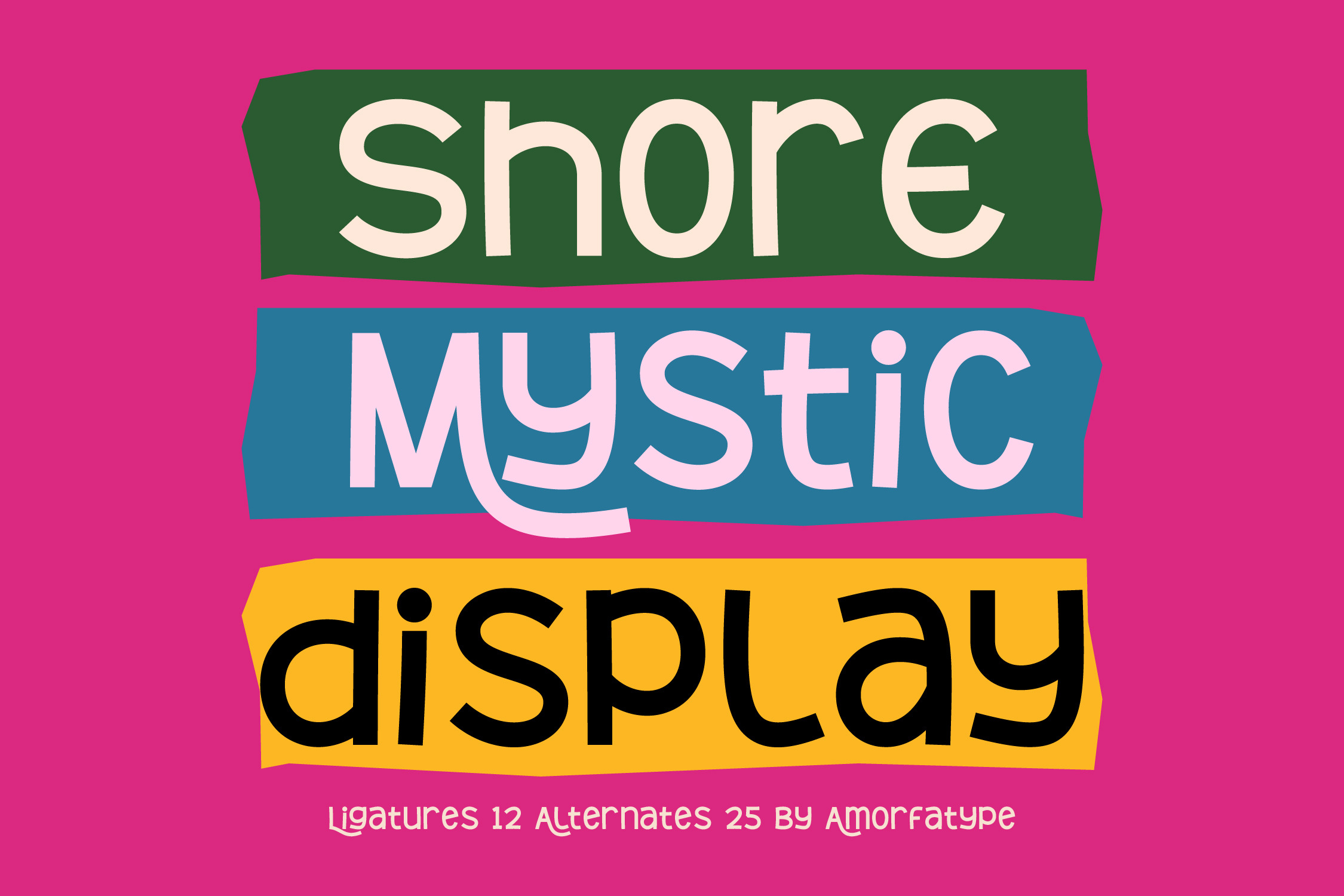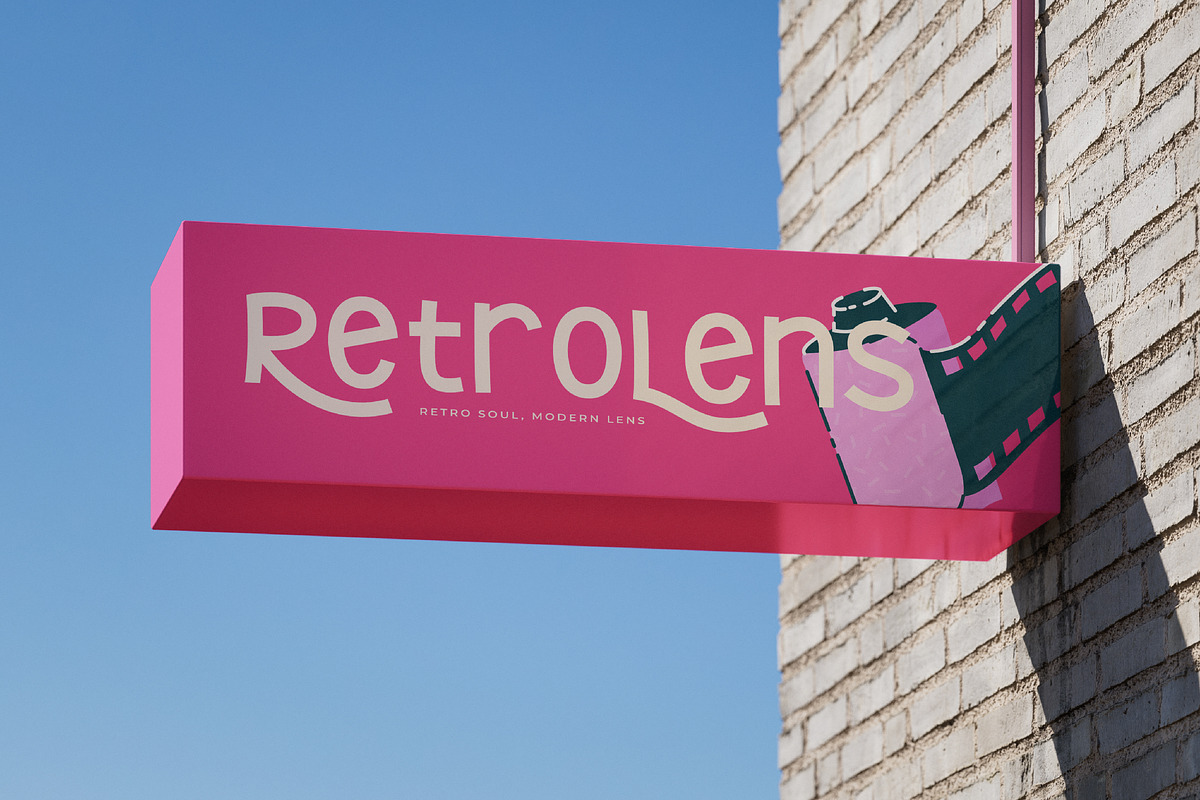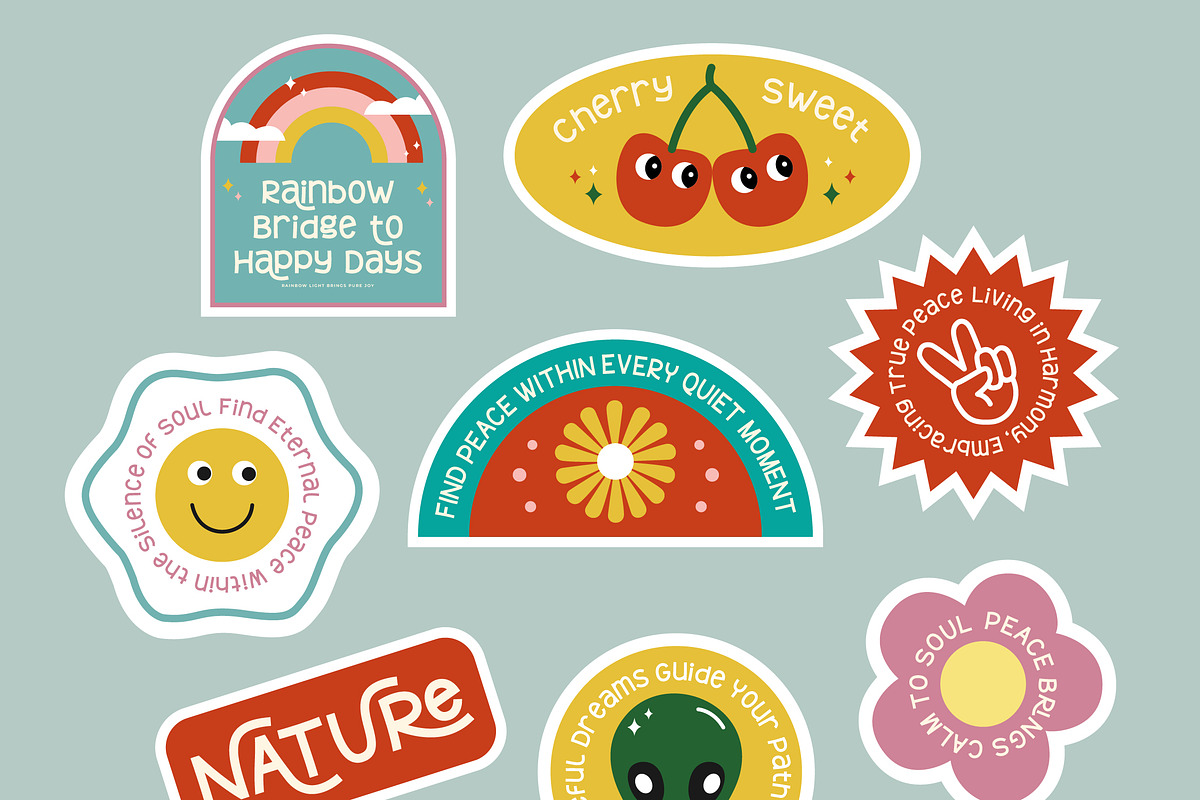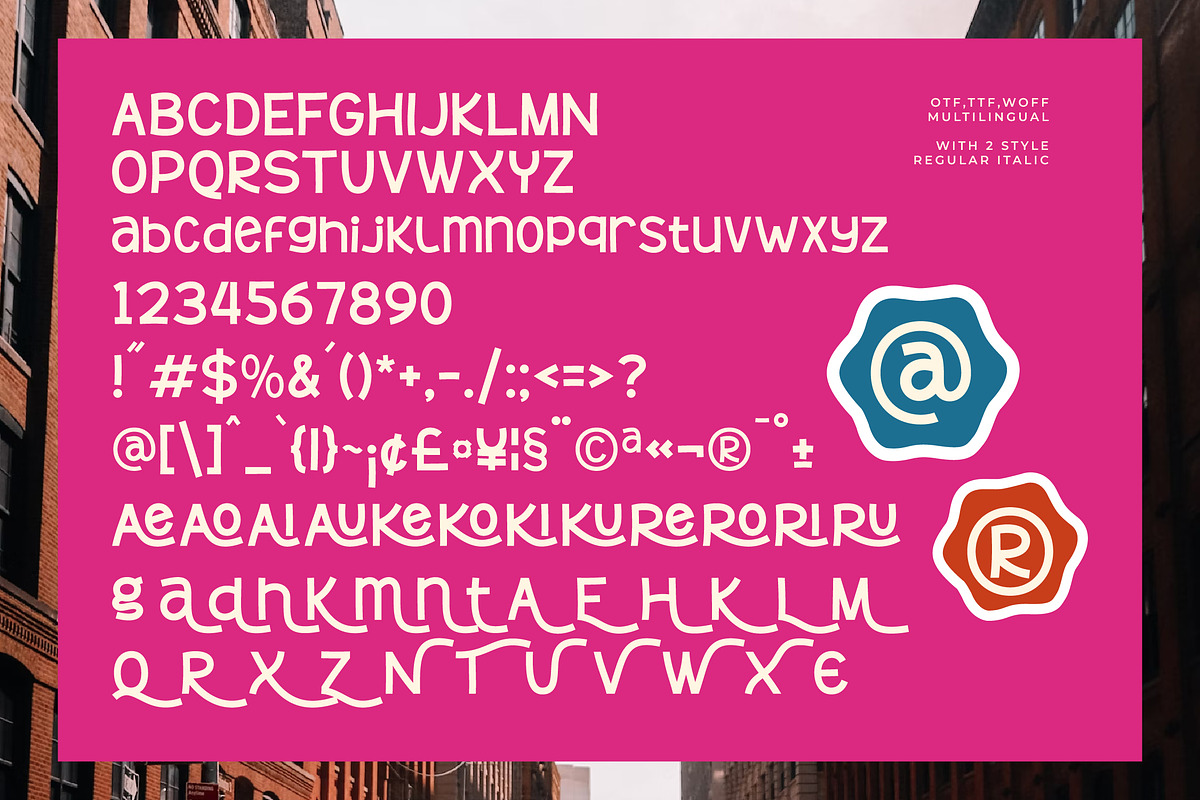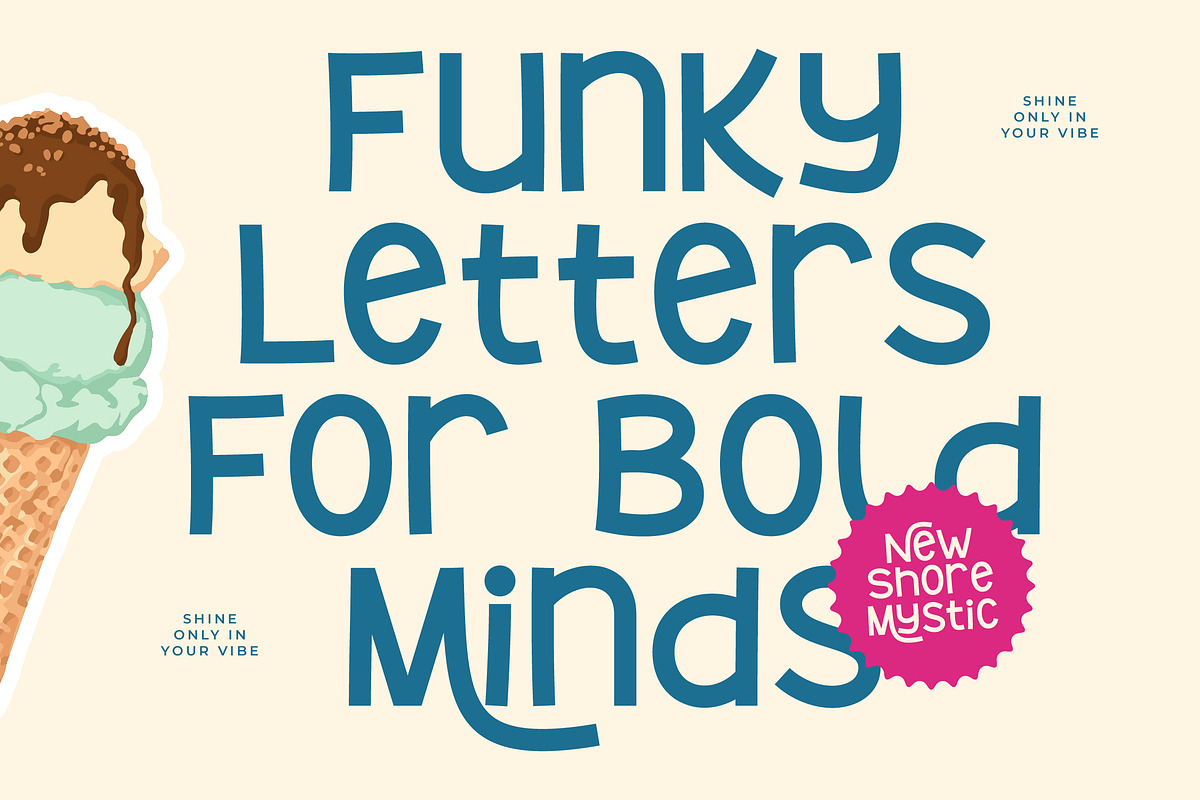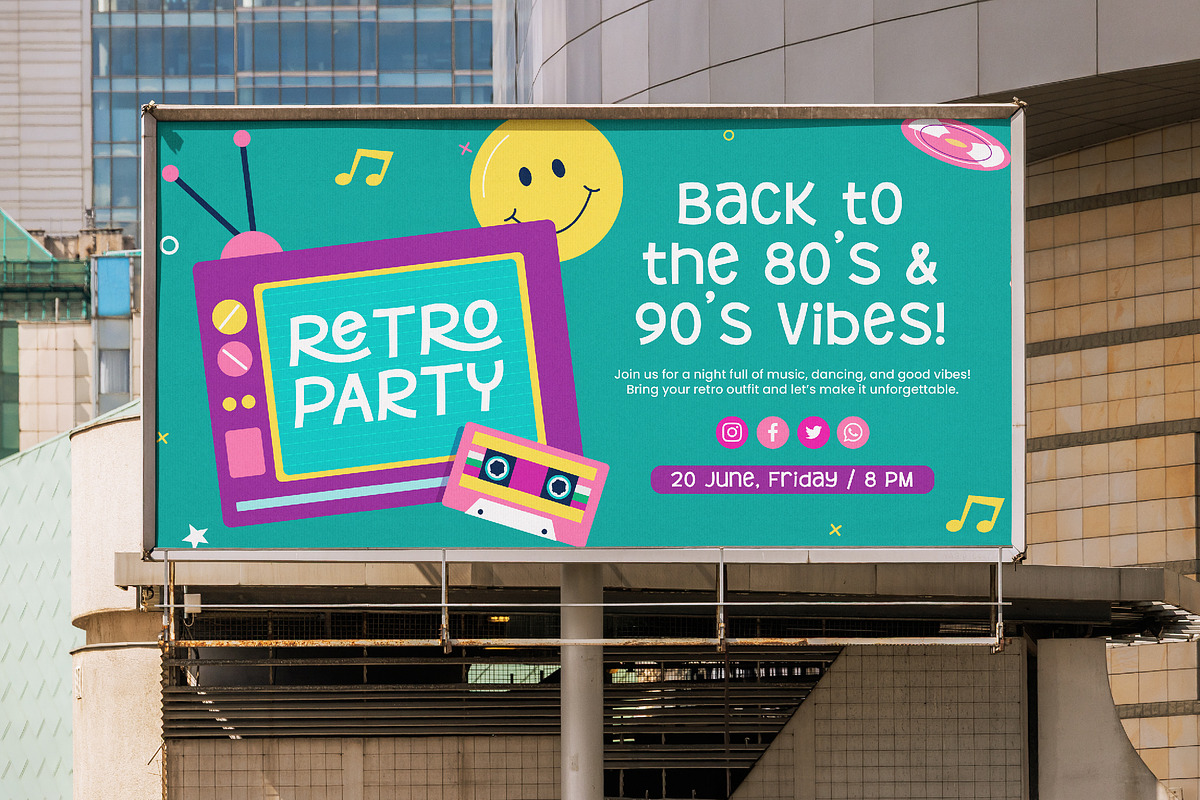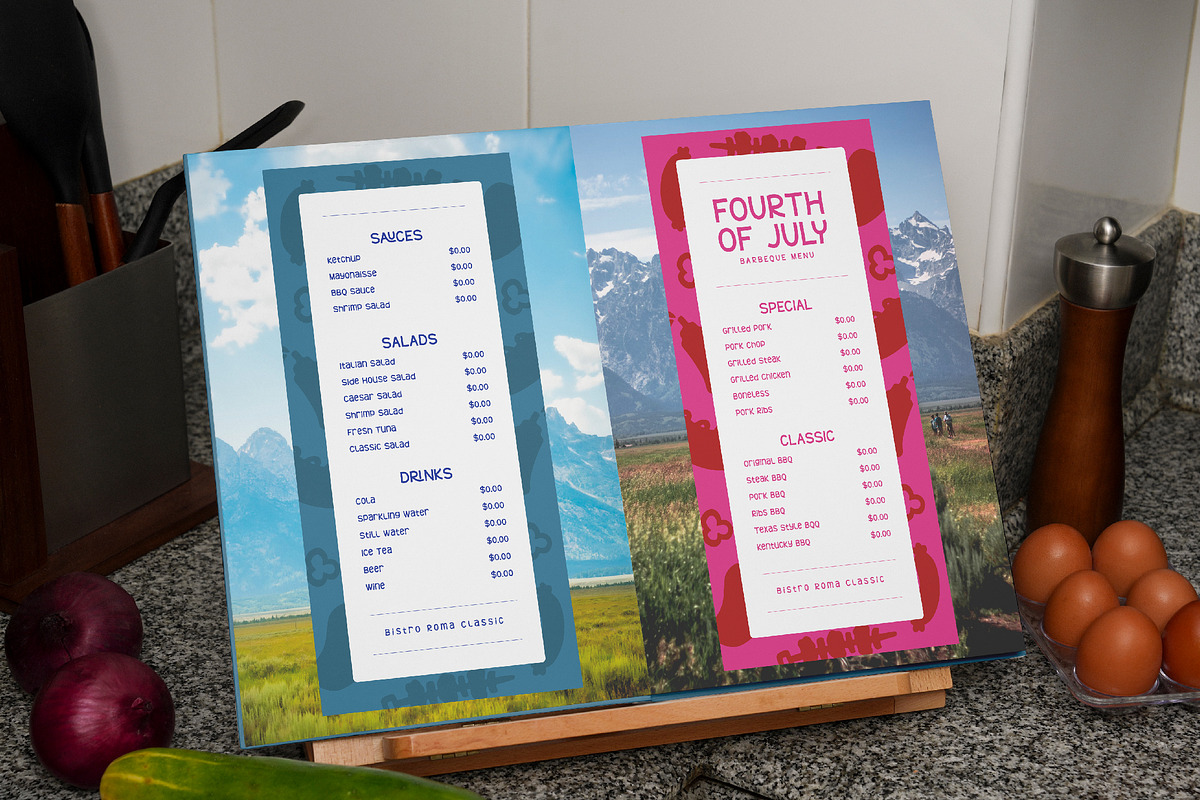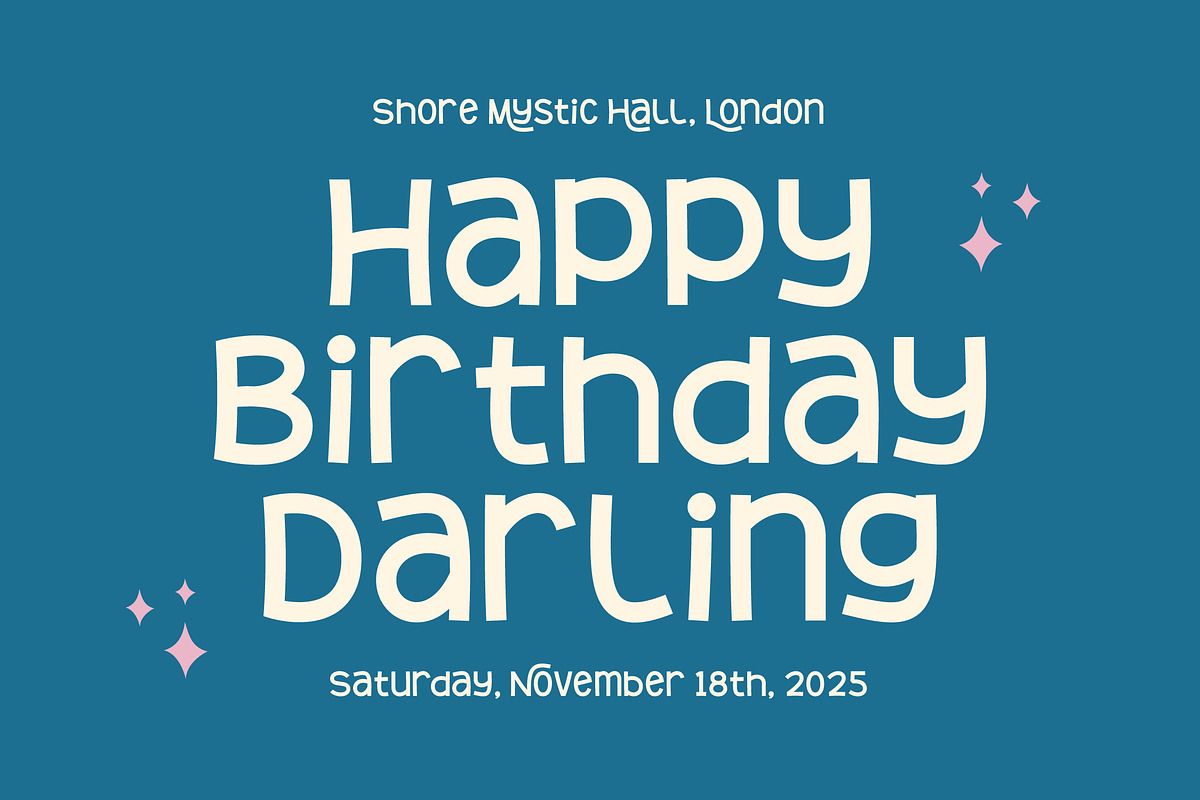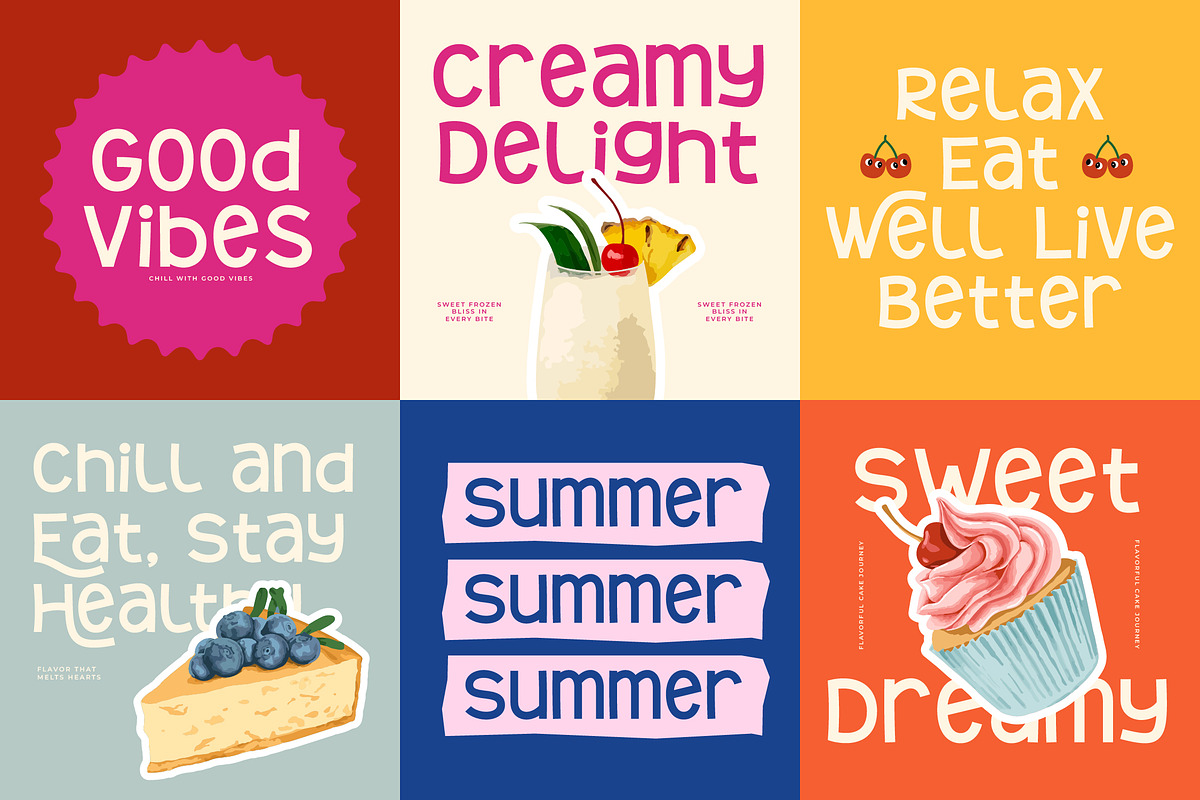
Shore Mystic A Playful Quirky Font
Shore Mystic – A Playful Quirky Display Sans Serif Font by Amorfatype
Shore Mystic is a fun and quirky display sans serif font that brings energy, creativity, and a handmade touch to your designs. With its playful letterforms, organic shapes, and cheerful personality, this font instantly adds charm and uniqueness to any project.
Perfect for posters, packaging, children’s books, cartoon titles, logos, and creative branding, Shore Mystic captures attention with its bold yet approachable style. Its irregular rhythm and expressive alternates make it perfect for projects that aim to feel dynamic, friendly, and original.
With a total of 369 glyphs, including 25 alternates and 12 ligatures, Shore Mystic gives you flexibility and variation to experiment with endless combinations. Whether you want a casual, hand-drawn vibe or a bold display look, this font adapts seamlessly.
Bring your designs to life with Shore Mystic’s playful energy and let your typography stand out with personality and charm.
25 Alternates & 12 Ligatures